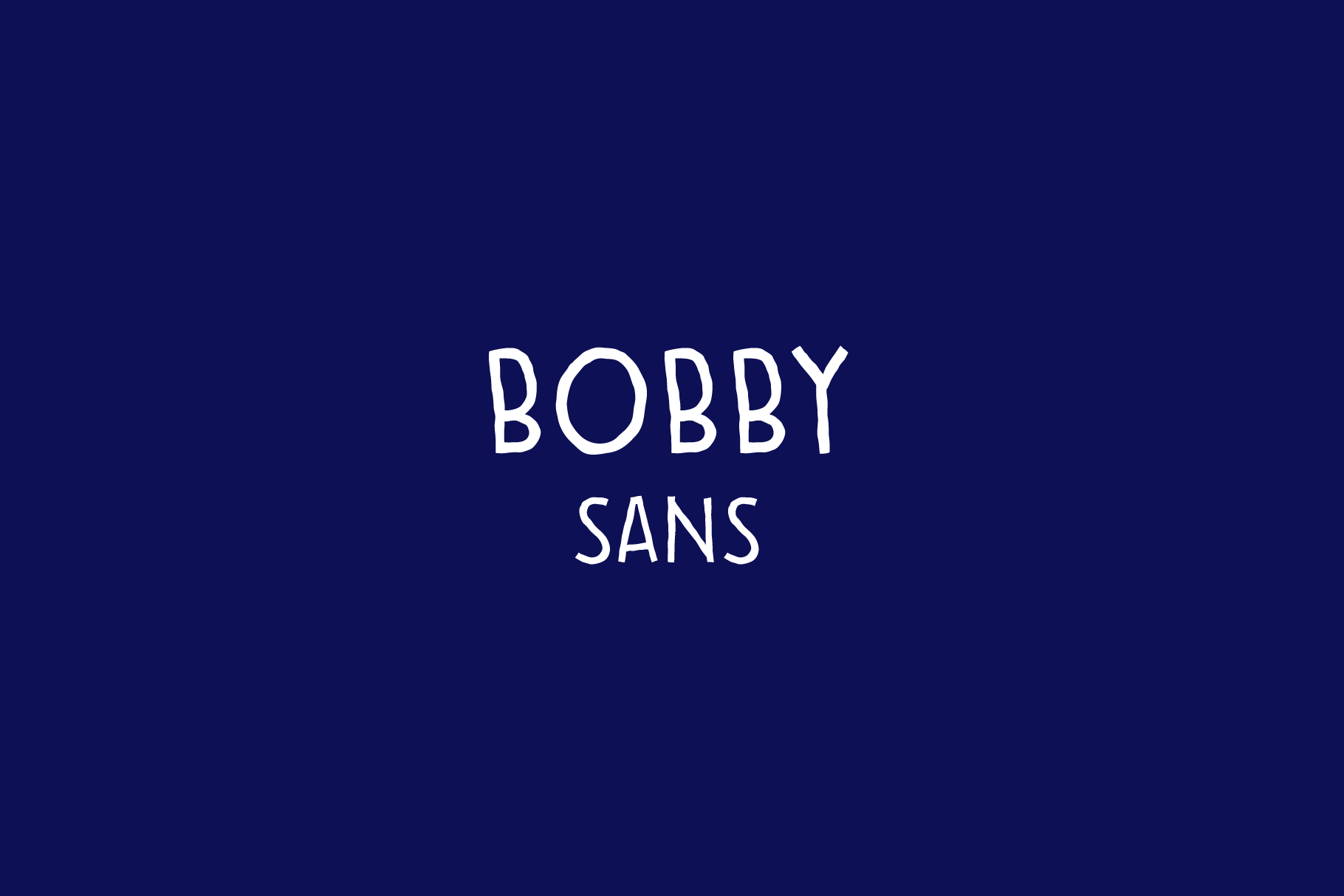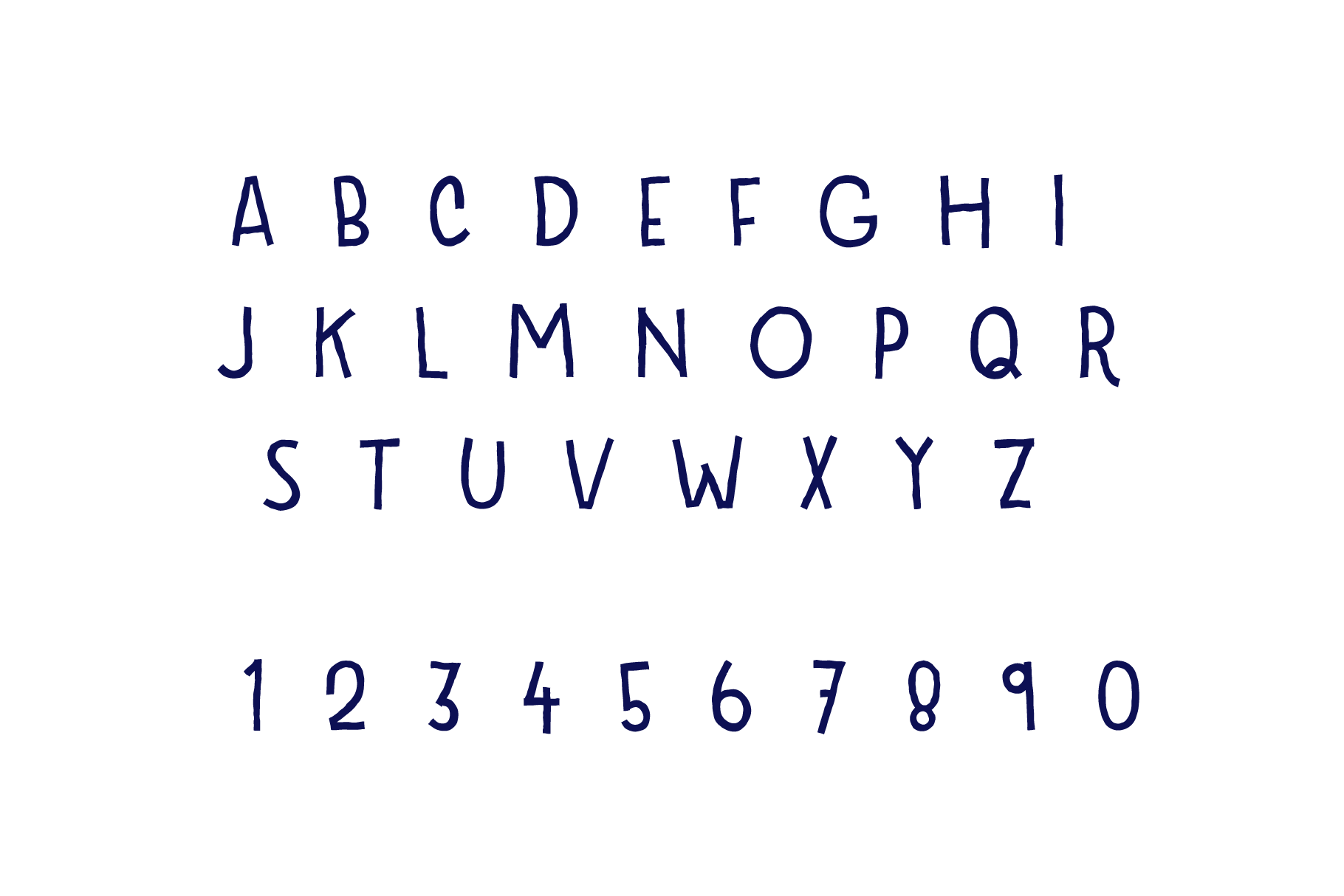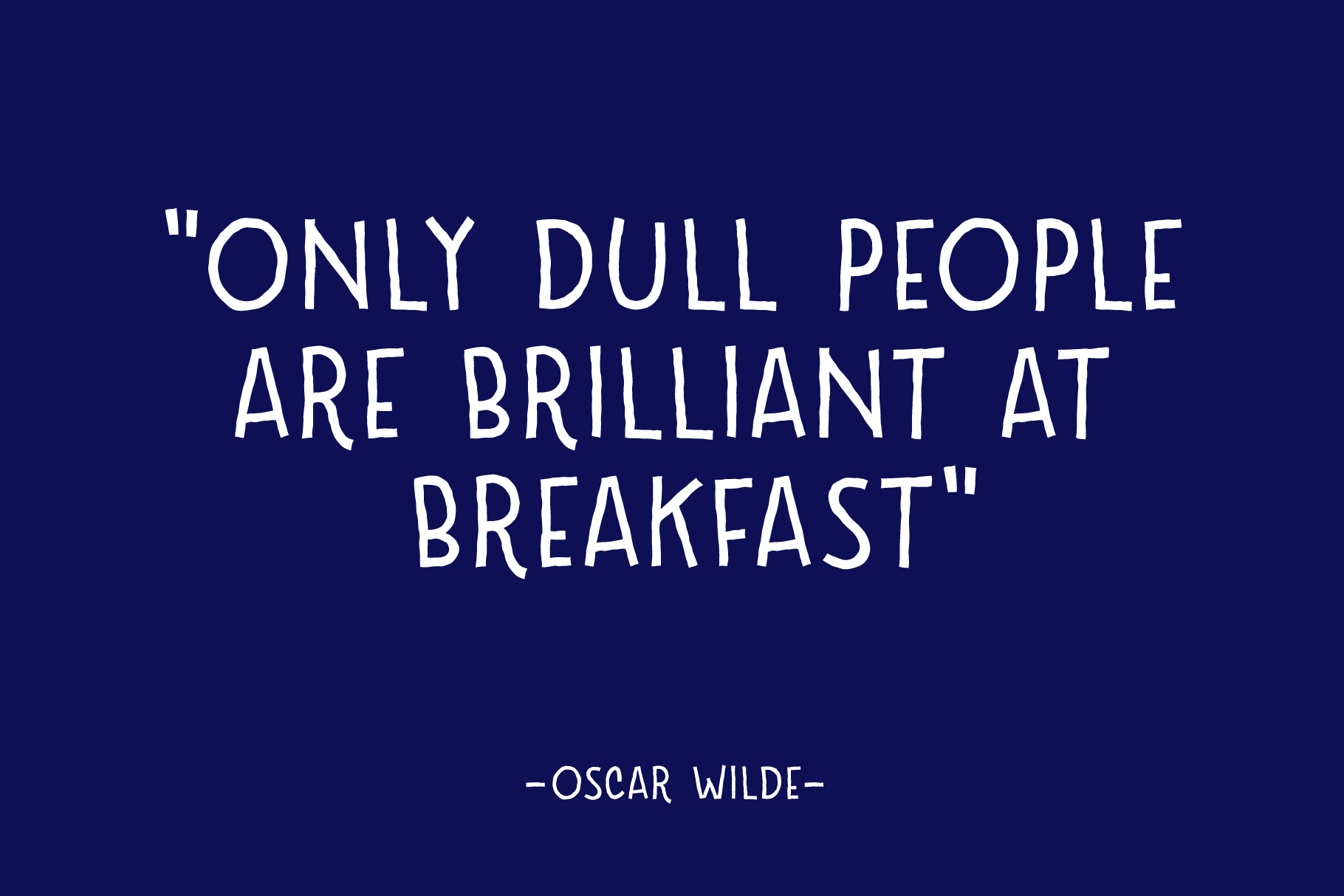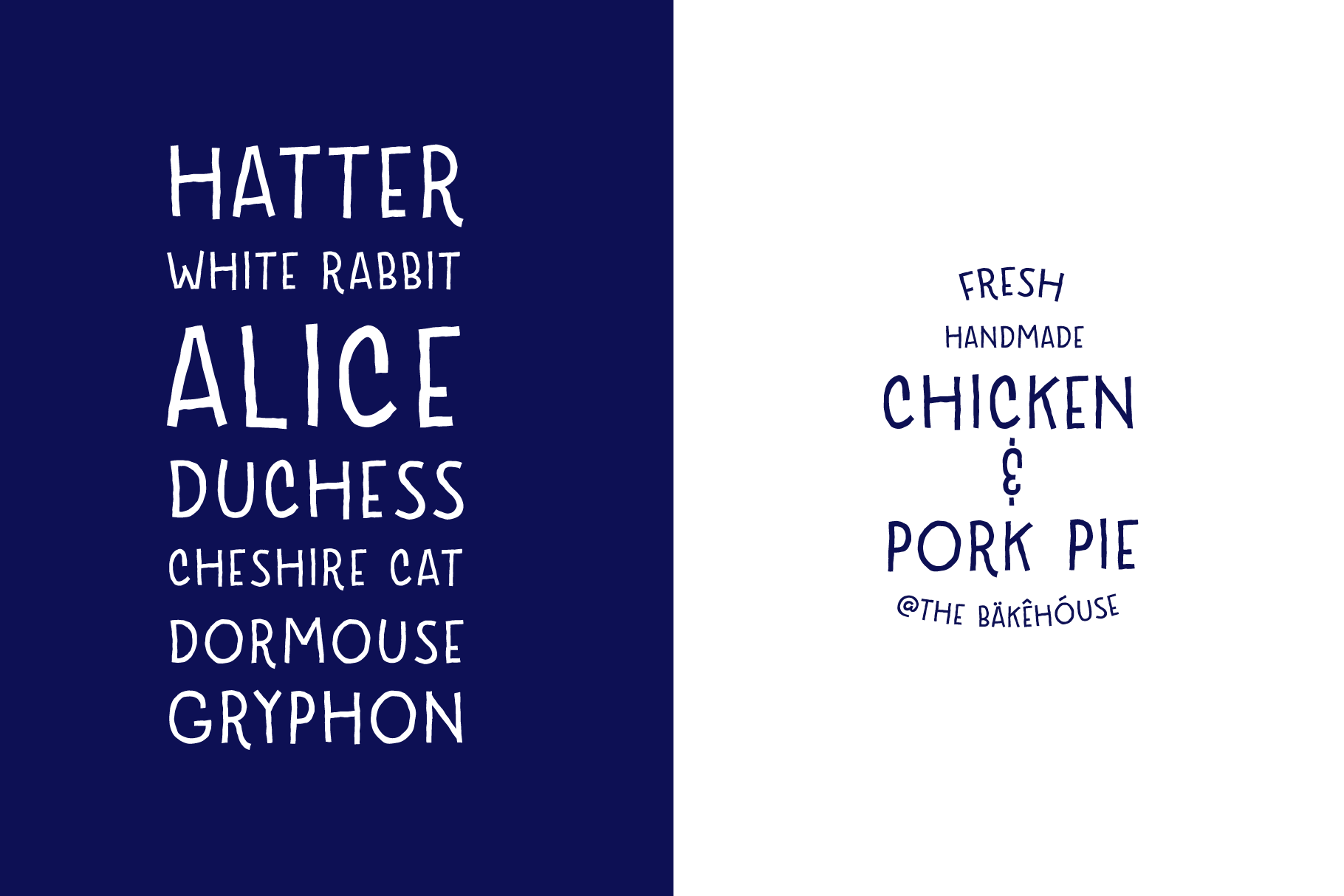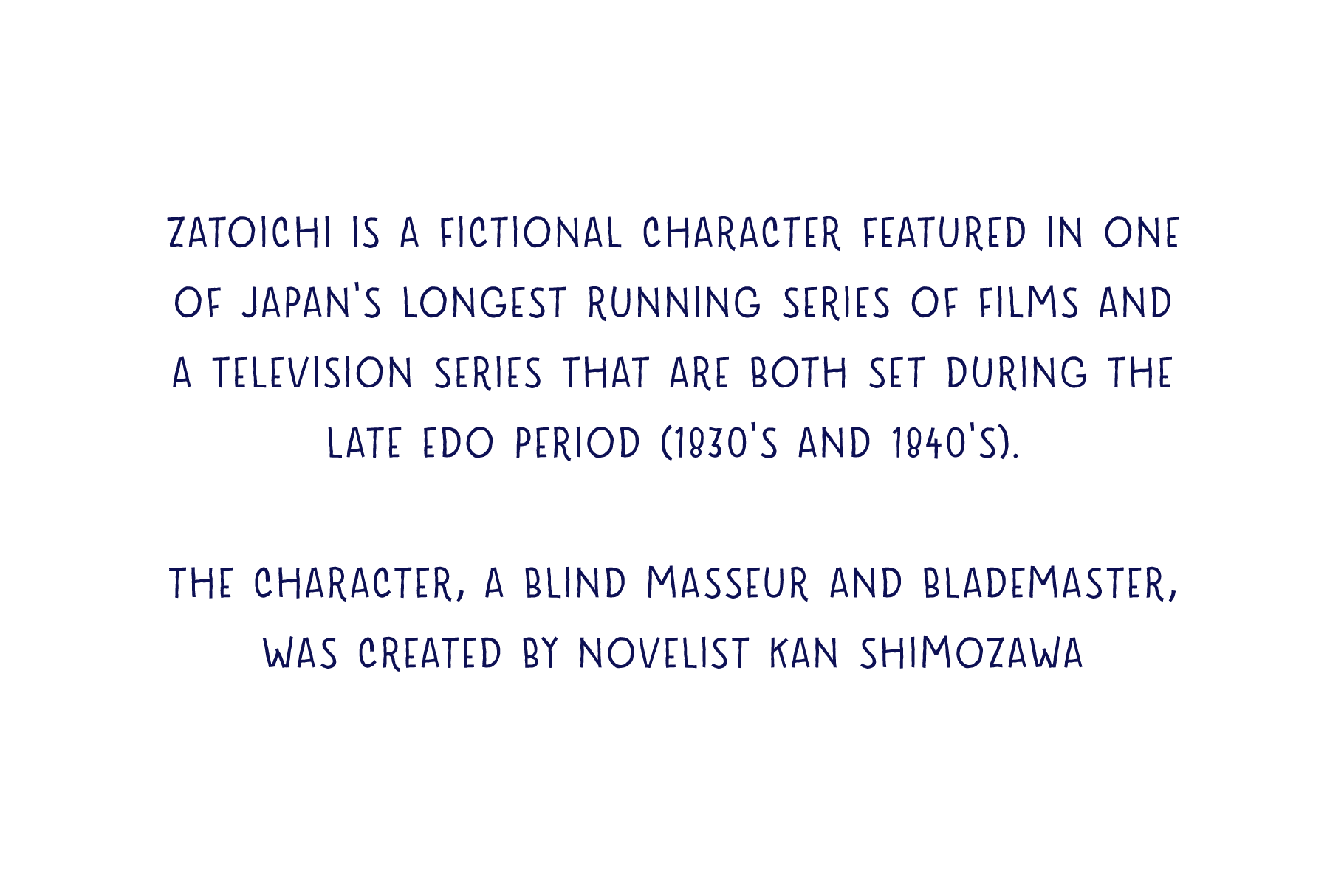
Bobby Font
About Bobby Font
Bobby is a fun and charming handwritten sans serif font. This font is ideal for logotype given its subtle ripped edges, and can give your creative projects a cool and hip vibe.